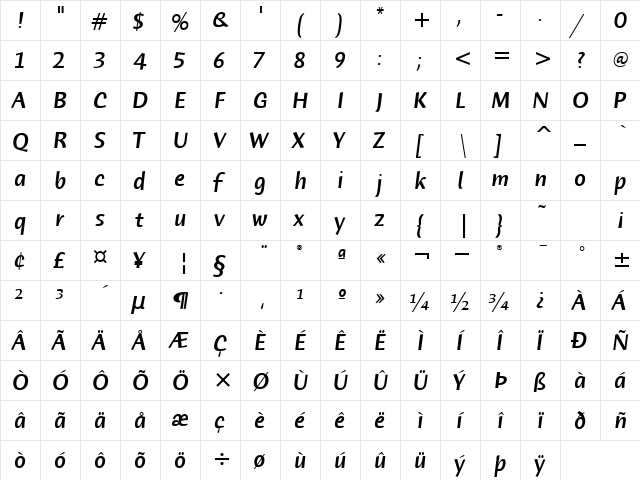
Humana Sans Md ITC TT MediumIta
Design Context for Humana Sans Md ITC TT Typeface
Humana Sans Md ITC TT offers clean, dependable letterforms without strong stylistic allegiance, making it a practical choice for designers who need flexibility.